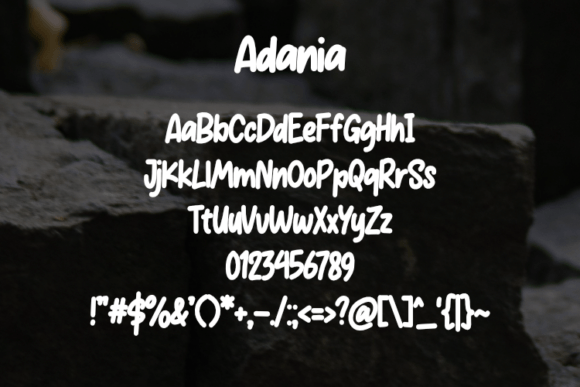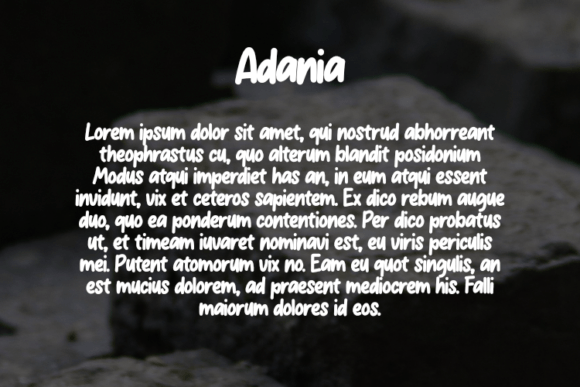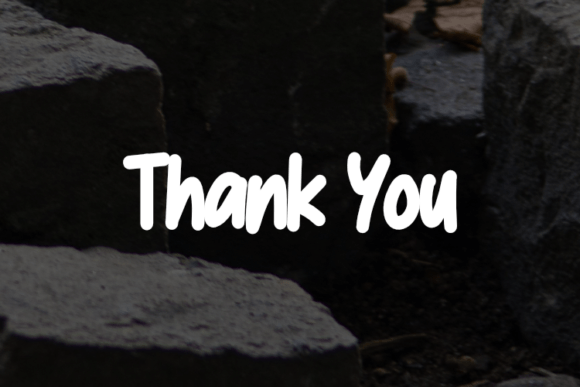
Introducing Adania Font: Elevate Your Design Craftsmanship
In the world of design, the right font can make all the difference. It’s not just about aesthetics; it’s about conveying a message, evoking emotions, and creating a lasting impression. For designers and crafters, finding the perfect font that combines versatility, precision, and compatibility can be a daunting task. That’s where Adania Font comes in – a game-changing addition to your design toolkit.
Meet Adania: The Versatile Font
Adania Font is a masterpiece crafted with immaculate precision to accentuate your design endeavors. Whether you’re working on apparel, product design, or any other creative project, Adania is the ultimate design partner you’ve been searching for. Its unique design and exceptional flexibility make it an ideal choice for a wide range of applications, from clothes and t-shirts to branding and marketing materials.
Designed for Designers, by Designers
Adania Font is specifically designed to cater to the needs of designers and crafters. Its creation stems from a deep understanding of the challenges faced by designers when working with fonts. The result is a font that not only looks stunning but also provides unparalleled flexibility and compatibility.
Key Features of Adania Font
- Versatility: Adania Font is tailor-made for various design niches, including apparel and product design. Its unique design ensures that it can be used for a wide range of applications, from casual to professional.
- Precision: Crafted with immaculate precision, Adania Font is designed to make your designs stand out. Its clean lines, perfect curves, and exceptional kerning ensure that your text looks stunning and highly legible.
Benefits of Using Adania Font
By incorporating Adania Font into your design workflow, you can experience a significant boost in productivity and creativity. Here are some benefits that make Adania Font an indispensable asset:
- Elevate Your Designs: With Adania Font, you can take your designs to new heights. Its unique design and exceptional legibility ensure that your text stands out, making your designs more engaging and effective.
- Enhance Creativity: By providing a versatile and precise font, Adania Font empowers you to explore new creative avenues. You can experiment with different design styles, confident that the font will adapt to your vision.
Who Can Benefit from Adania Font?
Adania Font is an excellent addition to the toolkit of various professionals and hobbyists, including:
- Fashion Designers: Create stunning apparel designs with Adania Font, perfect for clothes, t-shirts, and other fashion products.
- Product Designers: Elevate your product designs with Adania Font, ideal for branding, packaging, and marketing materials.
- Graphic Designers: Add a touch of elegance and sophistication to your graphic designs with Adania Font.
- Crafters: Whether you’re creating handmade products or selling digital goods, Adania Font can help you create visually appealing designs.
In conclusion, Adania Font is a versatile and precise font designed to elevate your design craftsmanship. Its compatibility with all software, convenient otf file format, and exceptional design make it an ultimate design partner for designers and crafters. By incorporating Adania Font into your workflow, you can save time, enhance creativity, and produce stunning designs that leave a lasting impression.